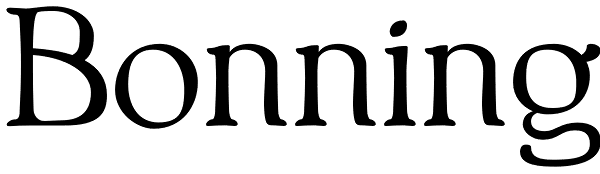
Bonning
Bonning is a Roman face full of the spirit of the 1920s. It was inspired by a (real)estate agent's For Sale board seen in an old sepia photograph from that era and combines visual flair and period with good clear legibility. A range of Opentype...